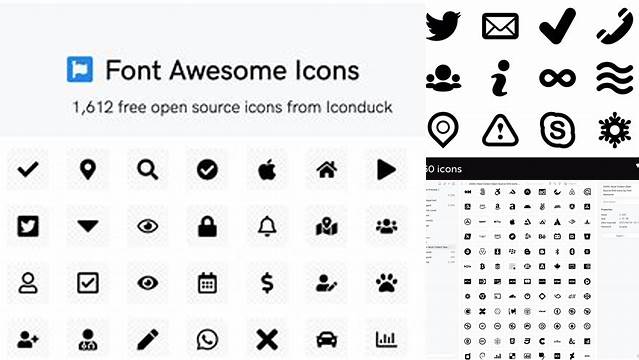
Font Awesome Free Icons: The Ultimate Guide
Font Awesome Free Icons: Your Ultimate Guide to Stunning Web Design
Hey everyone! If you're diving into web design or sprucing up your existing site, you've probably stumbled upon Font Awesome free icons. They're like the secret weapon for adding those sleek, eye-catching visuals that make a website pop. This guide is your go-to resource for everything Font Awesome, from getting started to advanced customization. Let's get this show on the road!
What Exactly Are Font Awesome Icons? Let's Break it Down
So, what exactly are Font Awesome free icons? Think of them as a massive library of scalable vector graphics (SVGs) that you can use on your website. Unlike regular images, these icons are fonts. This means they scale perfectly to any size without losing quality, making them super versatile for different devices and screen resolutions. They're not just images; they're fonts. This means you can change their color, size, and even add effects like shadows and rotations using CSS, which gives you tons of creative control. The beauty of Font Awesome lies in its simplicity and flexibility. You don't need to be a design guru to integrate these icons. With a few lines of code, you can add social media logos, navigation arrows, and countless other visual elements to enhance your site's user experience. This, in turn, can increase engagement and make your website look more professional.
Font Awesome offers both a free and a pro version. The free version is packed with hundreds of icons, covering a wide range of categories. You'll find everything from basic shapes and symbols to icons for common actions and functionalities. The pro version unlocks even more icons and customization options, but the free version is more than sufficient for most projects, especially when you're just starting out. The icons are designed with a consistent style, ensuring a cohesive and professional look across your website. They're also updated regularly, so you'll always have access to the latest design trends and icon styles. The ease of use, combined with the vast library of icons, makes Font Awesome a must-have tool for any web designer. Whether you're building a simple blog or a complex e-commerce site, these icons can help you create a visually appealing and user-friendly experience. They're also great for improving your website's SEO. By using icons instead of text for things like social media links or navigation menus, you can reduce the amount of text on your pages, which can help improve your website's loading speed. So, basically, Font Awesome is your best friend when it comes to making your website look amazing and function smoothly. And the best part? It's easy to get started, even if you're not a tech whiz. You can quickly add the necessary code to your website and start using the icons right away. Many content management systems (CMS) also offer plugins or built-in support for Font Awesome, which simplifies the process even further.
Getting Started: How to Integrate Font Awesome Free Icons
Once you've included the Font Awesome files, you can start adding icons to your website. The process is incredibly straightforward. Each icon has a unique class name, such as fa-facebook
or fa-envelope
. To add an icon, you use the <i>
tag, along with the fas
(for solid style) or far
(for regular style) class and the specific icon class. For example, to add a Facebook icon, you'd use <i class="fab fa-facebook"></i>
. This code will render the Facebook icon on your page. You can then customize the icon's appearance using CSS. Change the color using the color
property, adjust the size with the font-size
property, and add other styles like shadows or rotations to match your website's design. Remember, you can find the class names for all available icons on the Font Awesome website. They have a handy search feature that makes it easy to find the perfect icon for any situation. You can also use a Font Awesome kit. This gives you more control over the icons you want to use, but it's only available to those who have an account. Kits can also improve your website's loading speed. Using this method, you're sure to have a sleek-looking website.
Mastering Icon Usage: Tips and Tricks
Now that you know the basics, let's get into some pro tips to make the most of your Font Awesome free icons.
- Choosing the Right Icons: Think about the message you want to convey. Select icons that accurately represent the content or functionality they're associated with. Clarity is key. A confusing icon can frustrate users. Also, consider the visual style of your website. Font Awesome offers several styles, including solid, regular, and light. Choose a style that complements your overall design. Consistency is important here. Mixing different styles can make your site look unprofessional. Finally, always test your icons on different devices and screen sizes to ensure they look good everywhere.
- Customizing Icons with CSS: This is where the real fun begins. You can customize icons to match your brand's style. Change the color, size, and even add animations. For instance, to change the color of an icon, use the
color
property in your CSS. For example,.fa-facebook { color: #3b5998; }
Font Awesome Free Icons: Conclusion
And there you have it! Font Awesome free icons are a fantastic way to level up your web design game. They're versatile, easy to use, and can make your website look professional and engaging. By following the tips and tricks outlined in this guide, you'll be well on your way to creating visually stunning websites that users will love. So, go ahead and start experimenting with these amazing icons, and don't be afraid to get creative. Happy designing, everyone! Remember to always keep your website's accessibility in mind. This ensures that your website is usable by everyone, regardless of their abilities. Regularly update your Font Awesome library to take advantage of the latest icons and features. Keep an eye on your website's performance. Make sure your icons don't slow down your website's loading speed. Choose the right icons and customize them to match your brand's style. Font Awesome is your go-to tool for creating amazing websites that both look good and function well. So, what are you waiting for? Start using Font Awesome icons today and transform your web design projects!